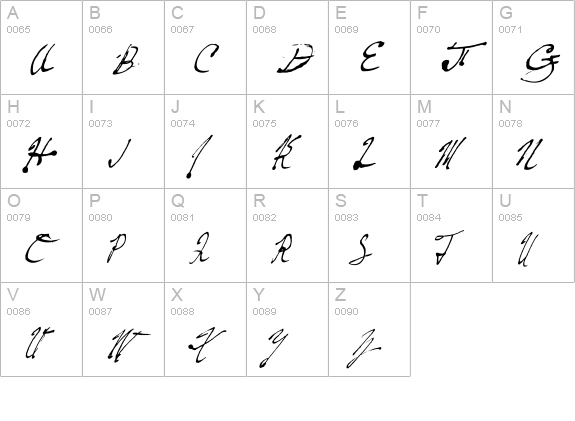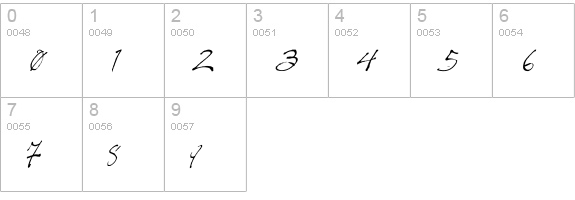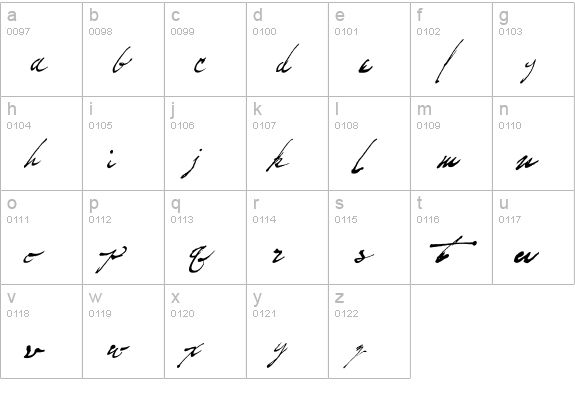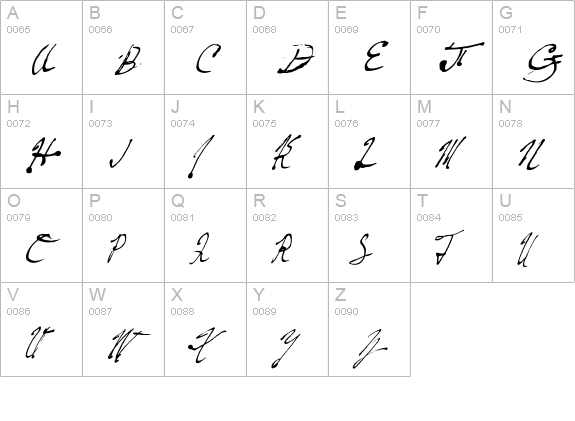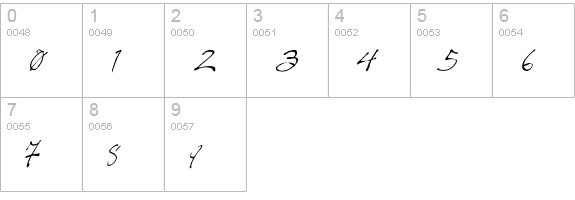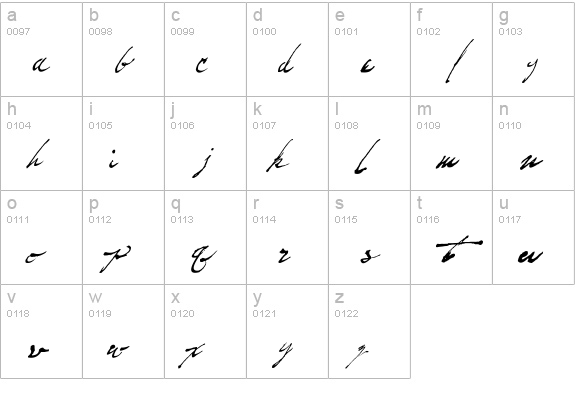
Fountain Pen Frenzy Font Details
Fountain Pen Frenzy font is a charming and elegant typeface that perfectly captures the essence of classic handwriting with a modern twist. Its flowing strokes and delicate curves evoke a sense of sophistication and refinement, making it an ideal choice for projects that require a touch of elegance. This exquisite font is not only visually appealing but also highly versatile, suitable for a wide range of design applications including invitations, logos, branding, and more. Its timeless appeal will surely make your text stand out and leave a lasting impression on your audience. Best of all, Fountain Pen Frenzy font is freely available to download at FontsMarket.com, allowing you to elevate your designs without any additional cost. Don't miss out on this opportunity to add a touch of class to your projects with this exquisite font. Download it today and start creating stunning designs that will leave a lasting impact.